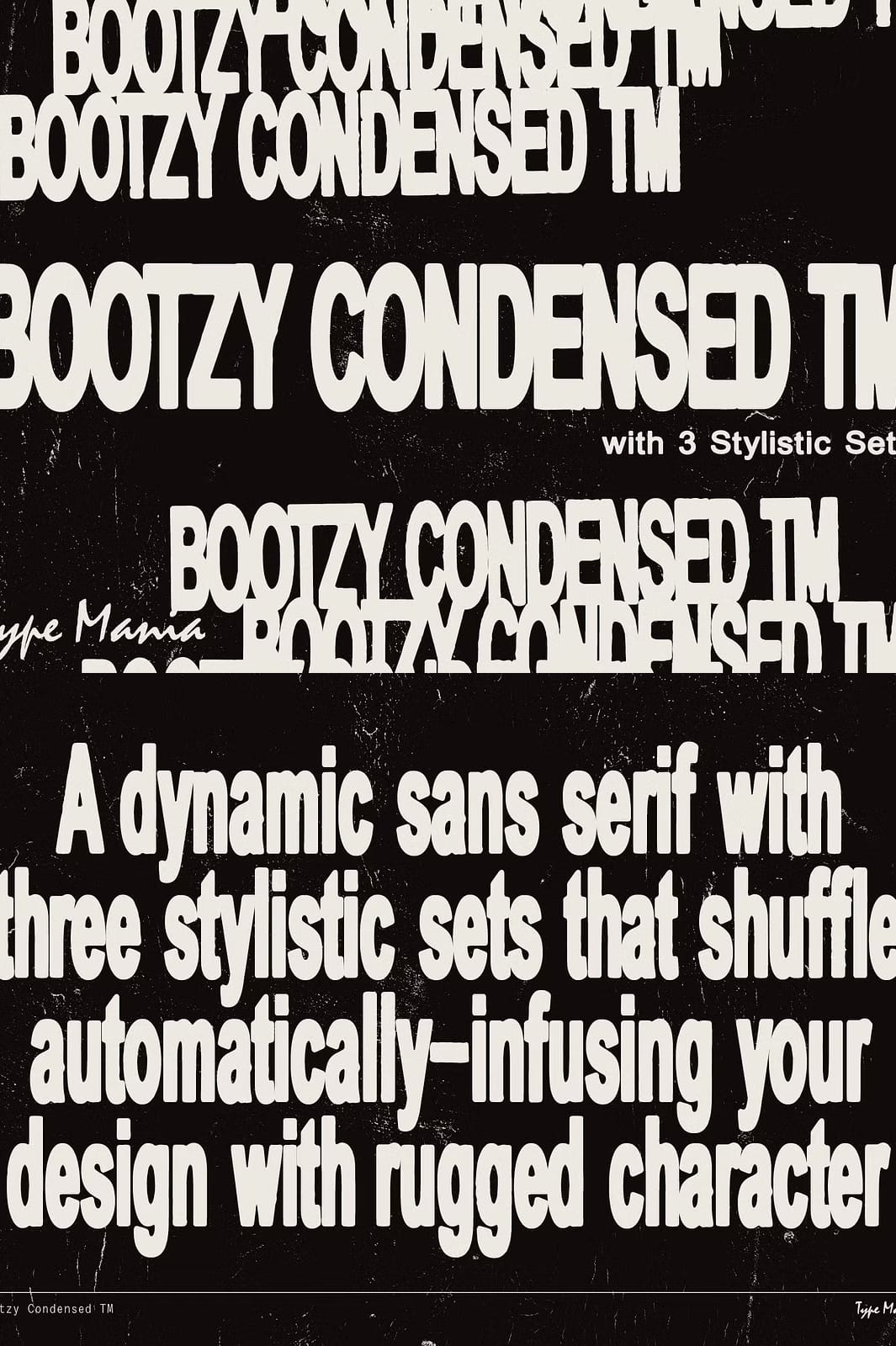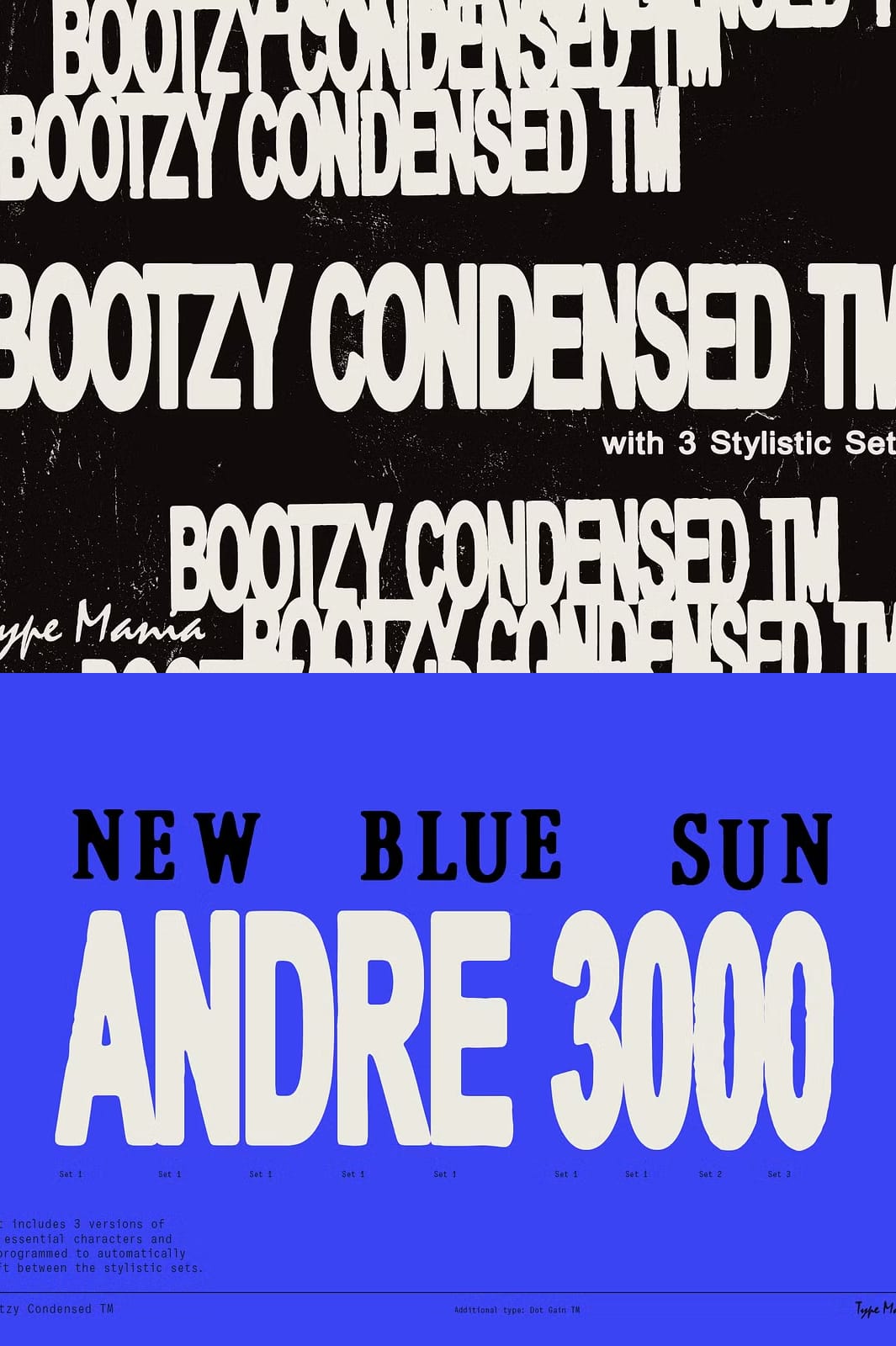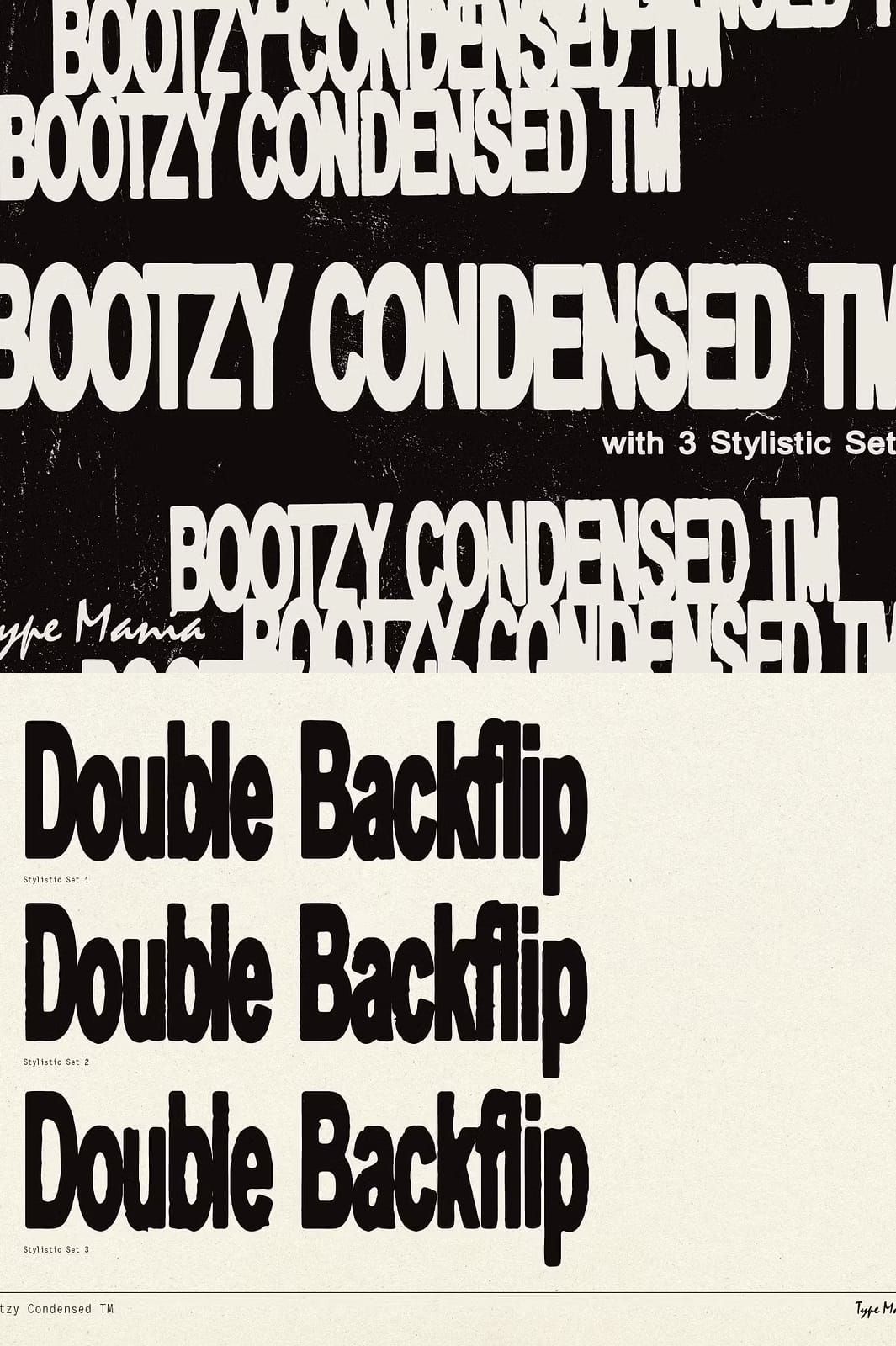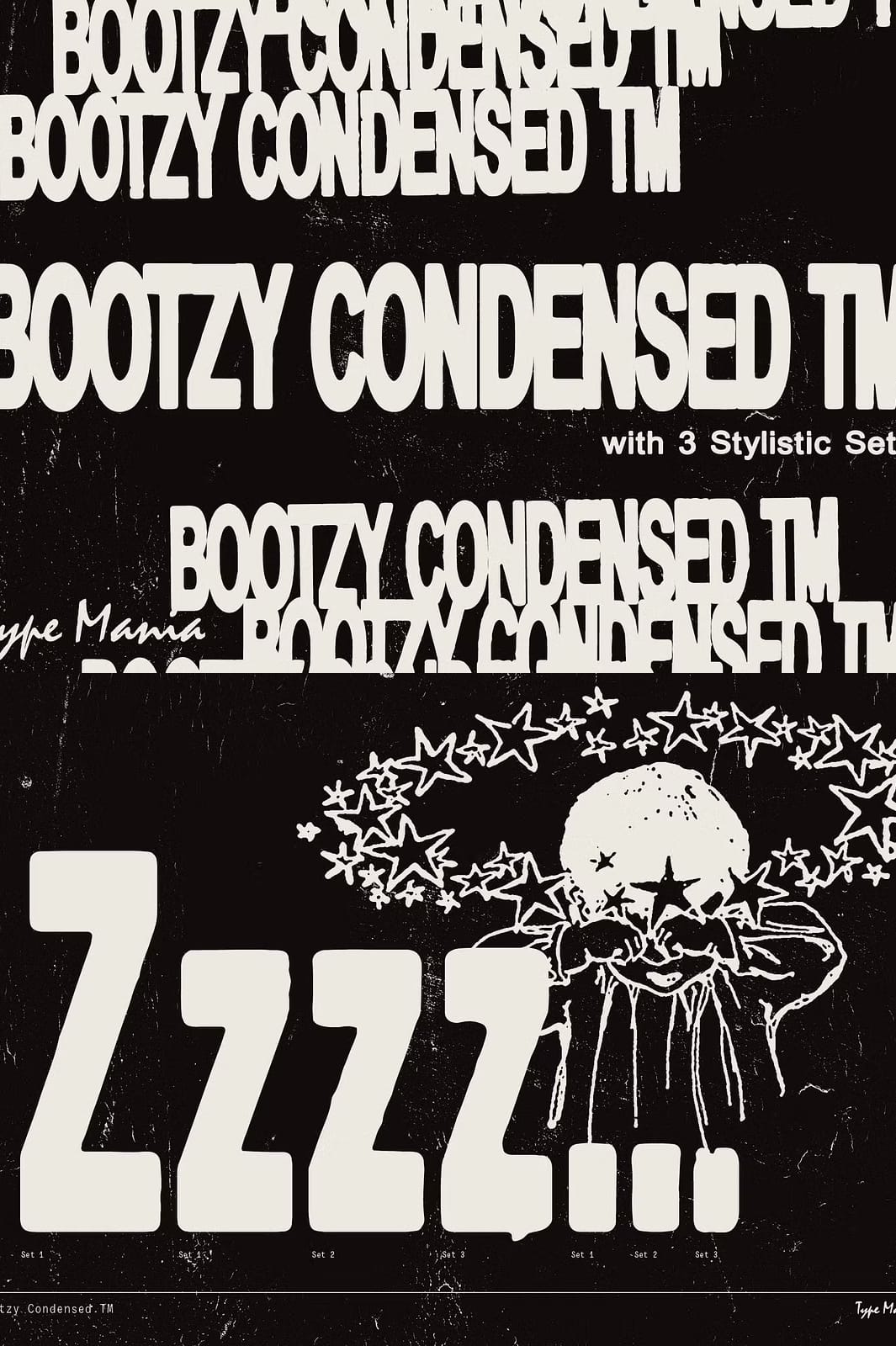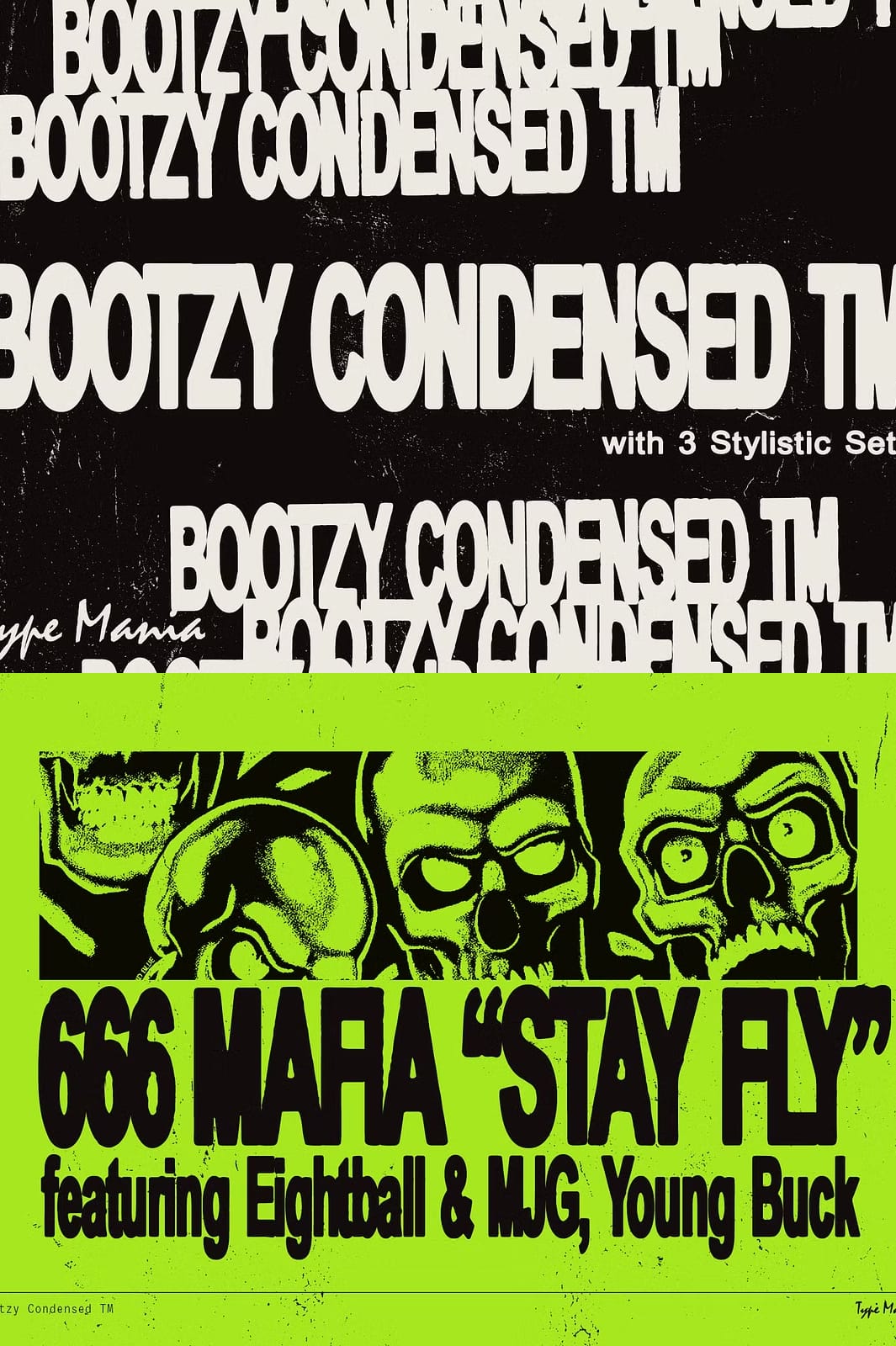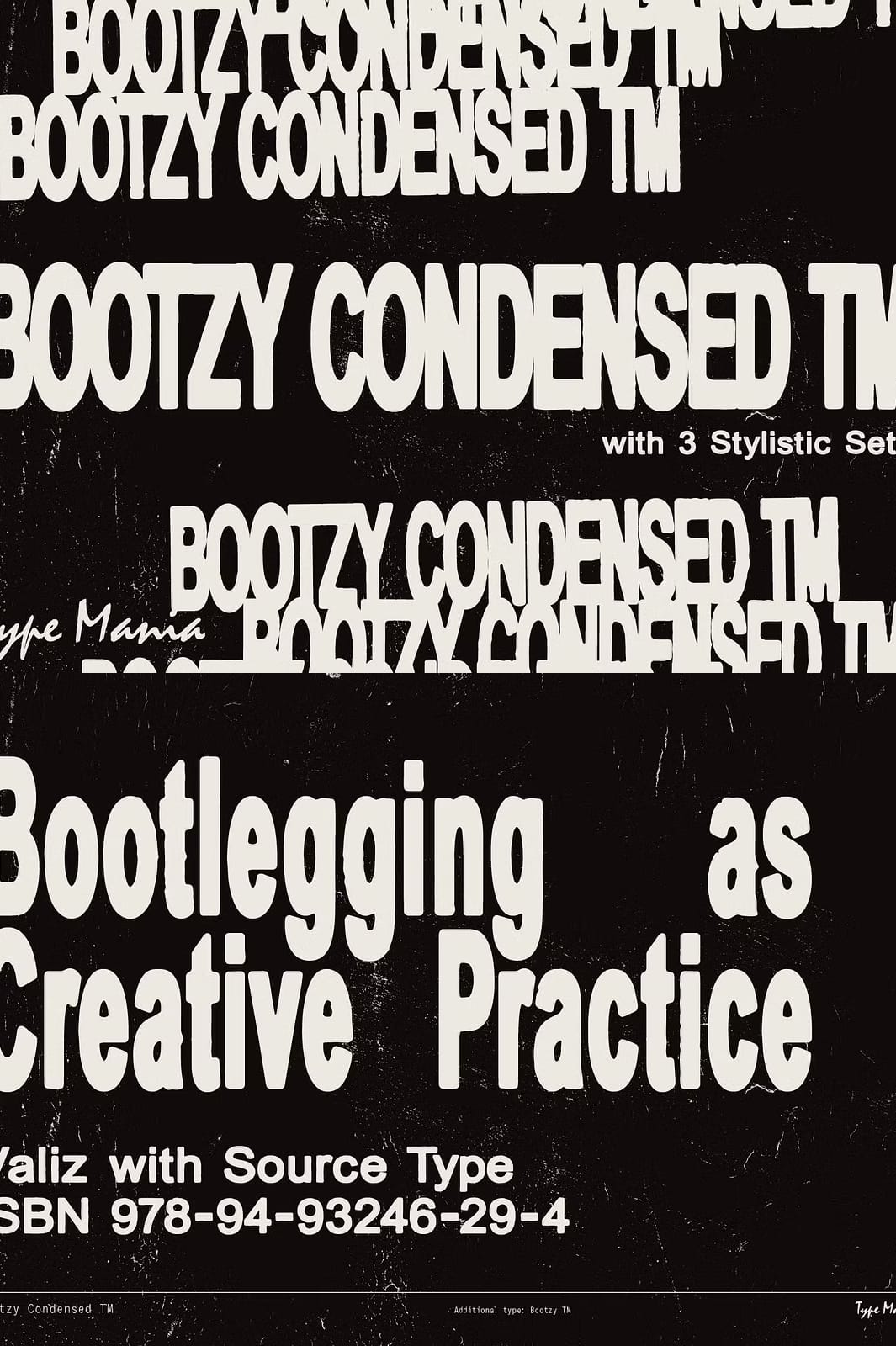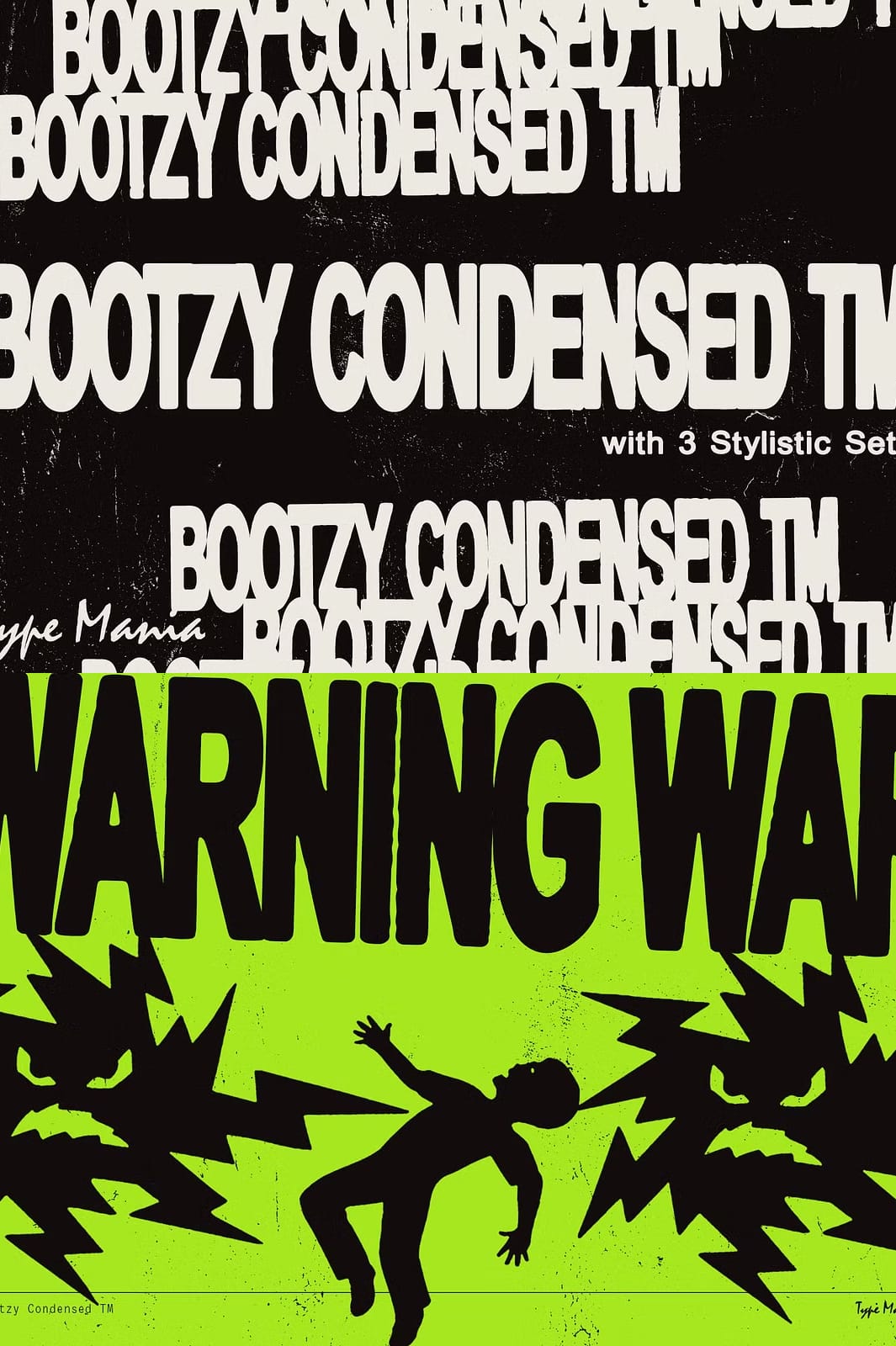
Embrace The Rebellious Spirit Of Underground Typography
Bootzy Condensed TM emerges from the creative underground as a bold statement in typographic design. This rugged display sans serif font captures the raw energy of DIY culture while maintaining professional quality. Designers seeking to make an impact will find its condensed proportions and distinctive character perfect for projects demanding attention. The font’s rebellious personality shines through in every glyph, making it ideal for zines, flyers, and street-inspired designs.
Born From The DIY Ethos Of Bootleg Culture
Drawing inspiration from the unfiltered creativity of bootleg culture, Bootzy Condensed TM embodies the spirit of artistic rebellion. Its design rejects conventional typographic norms in favor of raw, expressive forms that communicate authenticity. The font’s imperfections become its strengths, creating visual interest that mass-produced typefaces cannot replicate. This distinctive personality makes Bootzy Condensed TM stand out in crowded visual landscapes.
Dynamic Stylistic Sets For Visual Variation
Bootzy Condensed TM includes three carefully crafted stylistic sets that automatically activate when identical glyphs appear consecutively. This innovative feature creates organic variation in your typography, mimicking the handcrafted feel of authentic underground art. The shifting glyphs add movement and freshness to extended text, giving your designs an edgy, lively vibe. This functionality enhances readability and ensures each piece remains visually engaging.
Perfect For Flyers, Zines, And Creative Expressions
This font thrives in creative underground projects that demand an authentic and rebellious look. Its rugged aesthetics make it an excellent choice for flyers, zines, street art promotions, and other counter-culture designs. Bootzy Condensed TM conveys a strong message of individuality and DIY spirit, aligning perfectly with brands and projects that embrace uniqueness and nonconformity.
Beyond its distinctive style, Bootzy Condensed TM integrates essential OpenType features to simplify design workflows. The font provides 3 stylistic sets for artistic variation, ligatures for smooth character combinations, and comprehensive punctuation and symbols. These elements ensure the font performs excellently whether used in headings, body text, or logo types, enhancing readability and visual appeal.
Designed for versatility, Bootzy Condensed TM works flawlessly in both digital and print environments. Its condensed form allows efficient use of space without sacrificing legibility. Web designers, print artists, and branding experts will find it adapts well to various media, providing consistent impact across posters, websites, and merchandise.